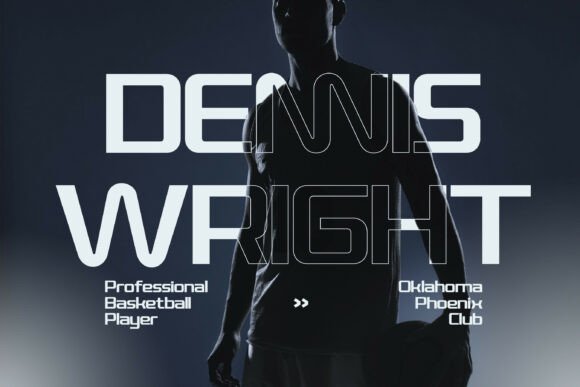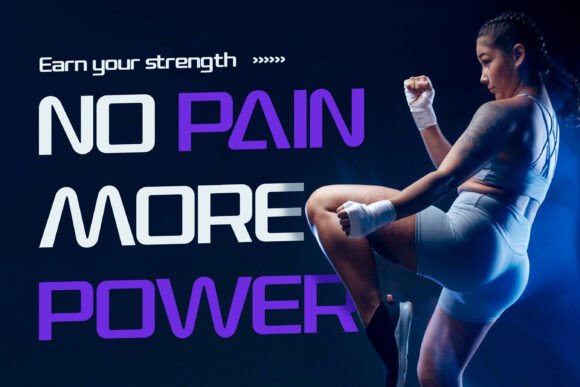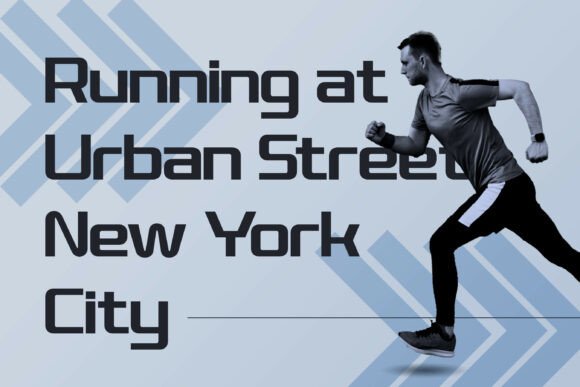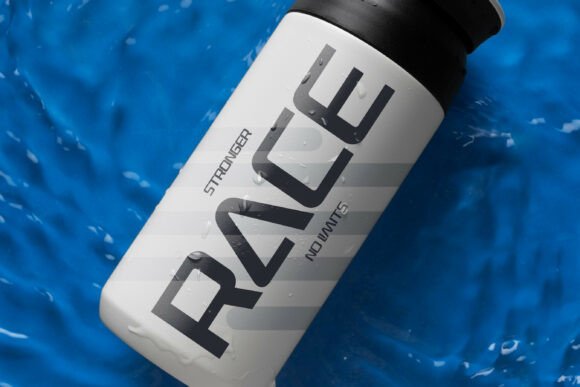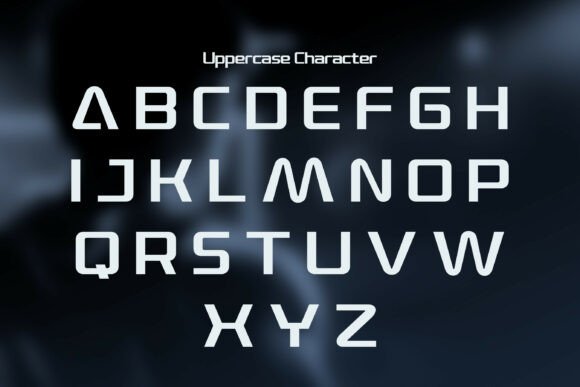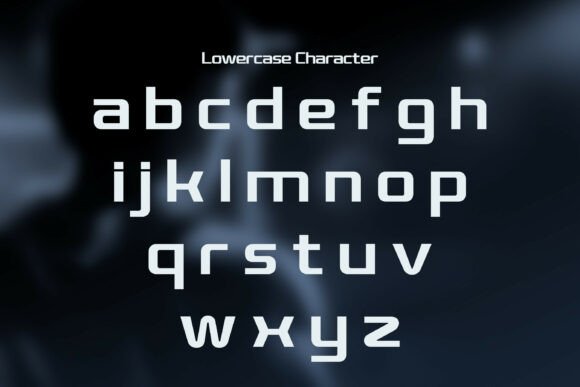
I still remember the countless hours I spent searching for the perfect font for a sports branding project. My client wanted something bold, energetic, and high-performance, but also refined and dynamic. I scoured the internet, tried out dozens of fonts, but nothing seemed to fit the bill. That was until I stumbled upon Essora Font. ✨
In this article, I’ll share my experience with Essora Font, its features, and how to make the most of it in your designs. Whether you’re a designer, crafter, or creative hobbyist, you’ll learn how to harness the power of Essora to elevate your typography.
Essora Font: A Modern Sport Display Font
Essora is a modern sport display font designed to bring a bold, energetic, and high-performance feel to your typography. With its clean lines, sharp edges, and well-balanced structure, Essora delivers a dynamic yet refined look that stands out in any composition. Blending sporty character with a modern aesthetic, Essora creates a sense of motion and confidence without feeling overly aggressive.
The Good: ✨
- ✅ Clean and sharp design: Essora’s lines and edges are crisp and well-defined, making it perfect for bold headlines and attention-grabbing visuals.
- ✅ Dynamic yet refined: Essora strikes a great balance between sporty and modern, making it suitable for a wide range of design projects.
- ✅ Legible and readable: Despite its bold nature, Essora remains clear and easy to read, even at smaller sizes.
The Not-So-Good: 🤔
- ⚠️ Limited use cases: Essora is a display font, so it’s best suited for headlines and titles rather than body text.
- ⚠️ May not work well with serif fonts: Essora’s bold, sans-serif design may clash with serif fonts, so it’s best to pair it with similar font styles.
Essora’s design is inspired by the world of sports and high-performance branding. Its creator aimed to craft a font that embodies the energy and dynamism of sports, while maintaining a refined and modern aesthetic. The result is a font that’s both bold and elegant, perfect for designers looking to make a statement.
| Font Name | Essora Font |
| Author | Twistystd |
Q: What type of projects is Essora best suited for?
A: Essora is ideal for designs that require a bold, energetic, and high-performance feel, such as sports branding, fitness, and outdoor gear.
Q: Can I use Essora for body text?
A: While Essora is a great font, it’s best suited for headlines and titles rather than body text. Its bold nature may make it difficult to read in longer passages.